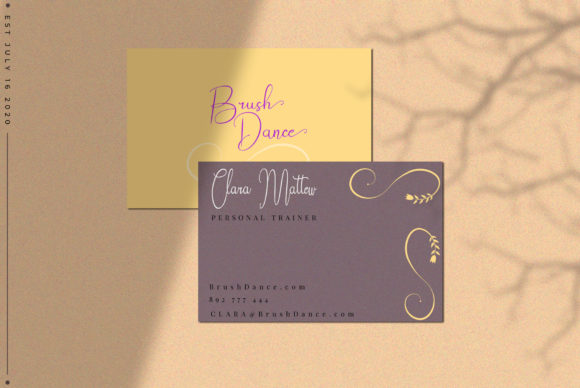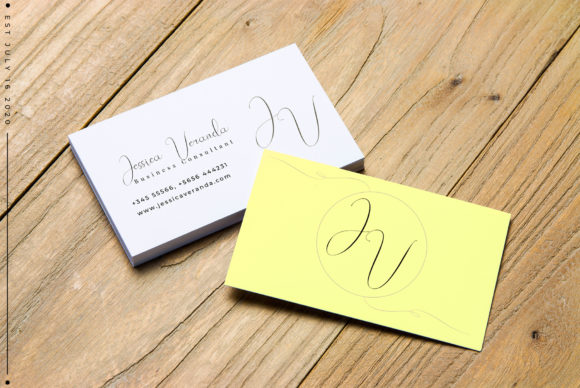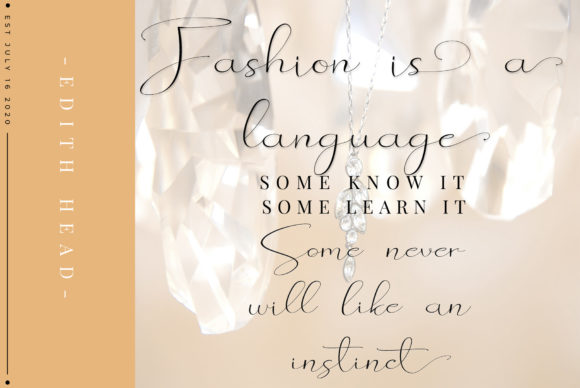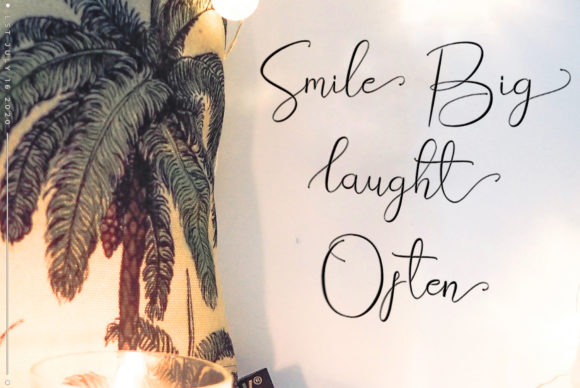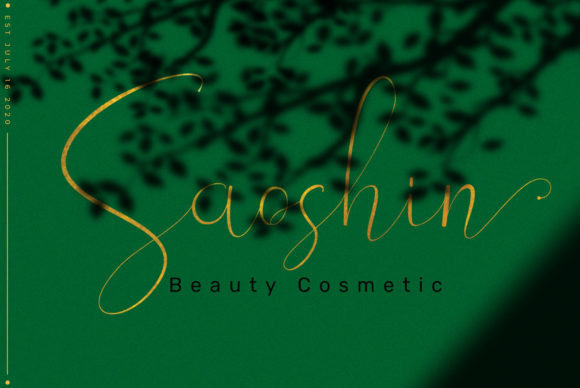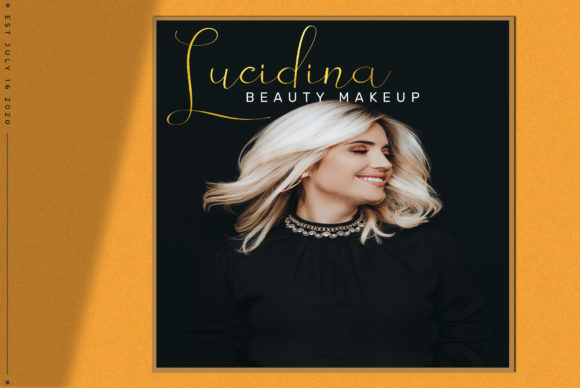
Introducing Glancing Font: Elevate Your Designs with Modern Calligraphy
In the world of typography, fonts play a crucial role in conveying the tone and aesthetic of a design. For those seeking an elegant and classy look, Glancing Font is an exceptional choice. This modern calligraphy font is perfect for a variety of design projects, including wedding invitations, business cards, logos, branding, and more. In this article, we’ll explore the features and benefits of Glancing Font, and how it can elevate your designs to the next level.
What is Glancing Font?
Glancing Font is a modern calligraphy font that exudes sophistication and refinement. Its fluid strokes and elegant letterforms make it an ideal choice for designers and crafters looking to add a touch of luxury to their work. Whether you’re creating wedding invitations, business cards, or branding materials, Glancing Font is sure to impress.
Key Features of Glancing Font
- Elegant and Classy Design: Glancing Font boasts a sleek and sophisticated design that’s perfect for high-end projects.
- Modern Calligraphy Style: This font features a modern calligraphy style that’s both trendy and timeless.
- Versatile: Glancing Font can be used for a wide range of design projects, from wedding invitations to business cards, logos, and branding materials.
- Easy to Read: Despite its elegant design, Glancing Font is easy to read, making it perfect for body text and headlines.
Use Cases for Glancing Font
Glancing Font is an incredibly versatile font that can be used for various design projects. Here are some use cases to get you started:
- Wedding Invitations: Add a touch of elegance to your wedding invitations with Glancing Font.
- Business Cards: Create professional and stylish business cards that make a lasting impression.
- Logos and Branding: Use Glancing Font to create a luxurious brand identity that stands out from the competition.
- Stationery and Packaging: Elevate your stationery and packaging designs with the sophisticated look of Glancing Font.
Benefits of Using Glancing Font
By incorporating Glancing Font into your designs, you’ll enjoy several benefits, including:
- Unique and Sophisticated Look: Glancing Font will give your designs a distinctive and high-end look that sets you apart.
- Improved Readability: This font is designed to be easy to read, ensuring your message is conveyed clearly and effectively.
- Flexibility: Glancing Font can be used for a wide range of design projects, making it a valuable addition to your font library.
Tips for Using Glancing Font
To get the most out of Glancing Font, follow these tips:
- Pair with Neutral Colors: Combine Glancing Font with neutral colors to create a balanced and sophisticated design.
- Experiment with Font Sizes: Play with different font sizes to create visual hierarchy and add emphasis to your design.
- Use for Headlines and Titles: Glancing Font is perfect for headlines and titles, adding a touch of elegance to your design.
Glancing Font is a stunning modern calligraphy font that’s perfect for designers and crafters looking to elevate their designs. With its elegant and classy design, versatility, and ease of use, Glancing Font is an excellent choice for a wide range of design projects. By incorporating this font into your workflow, you’ll be able to create sophisticated and luxurious designs that leave a lasting impression.